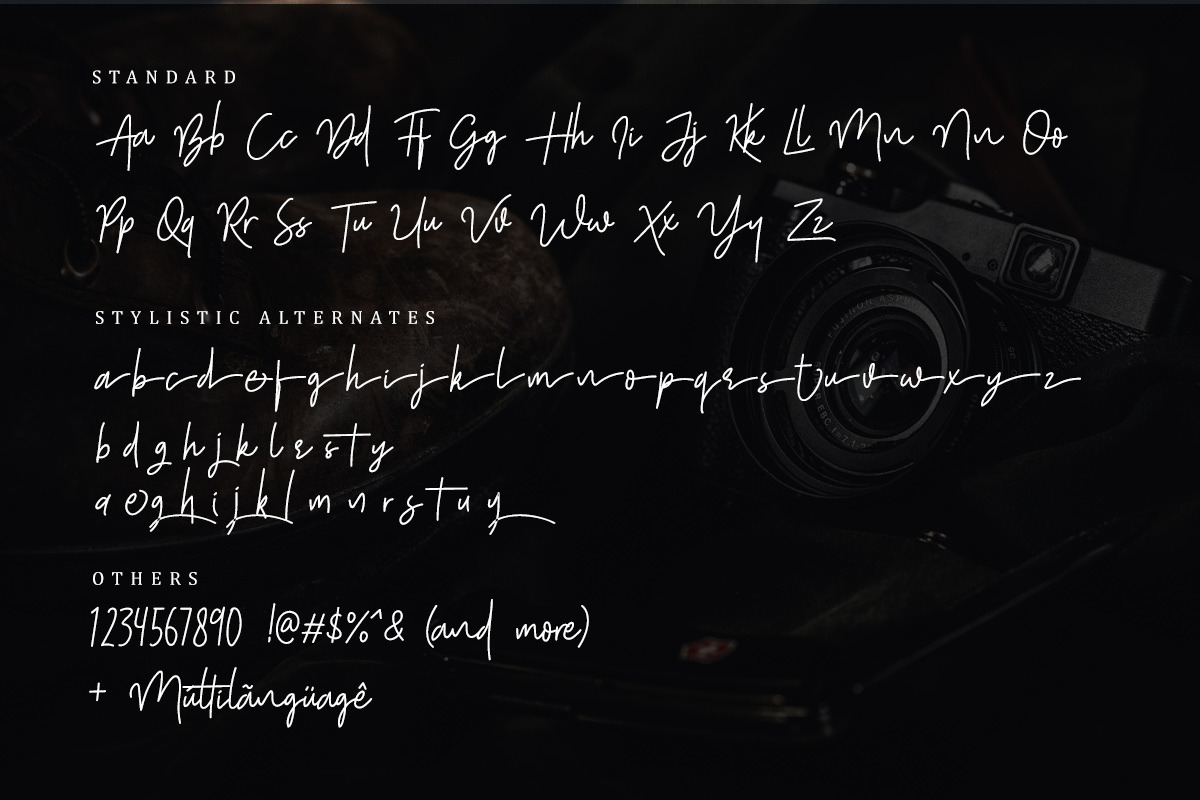
Shutter Stone - Signature Script
NEW UPDATE: Added two version of this font: ITALIC and BOLD.
Introducing, Shutter Stone. Another Signature Script Font for you!
Shutter Stone is handwritten font that contain stylistic alternate, swash, etc to create your own customized signature. This font is also support multi language. This font available in OTF and TTF. Also Support PUA.